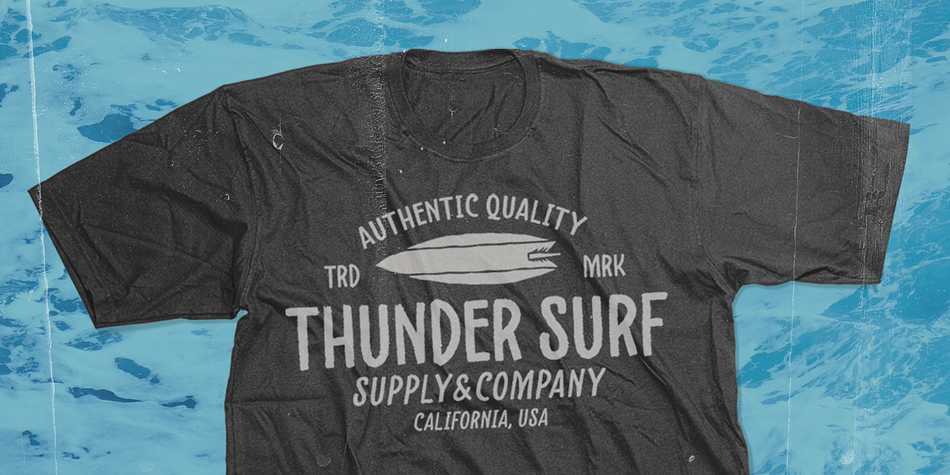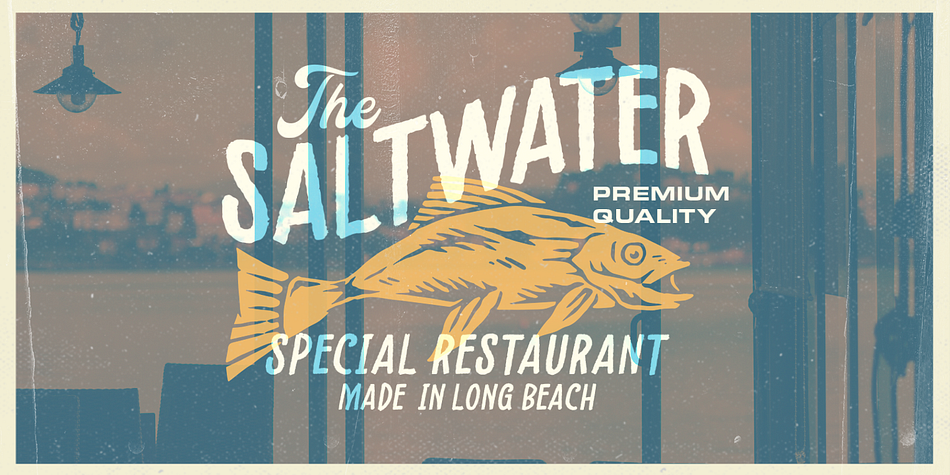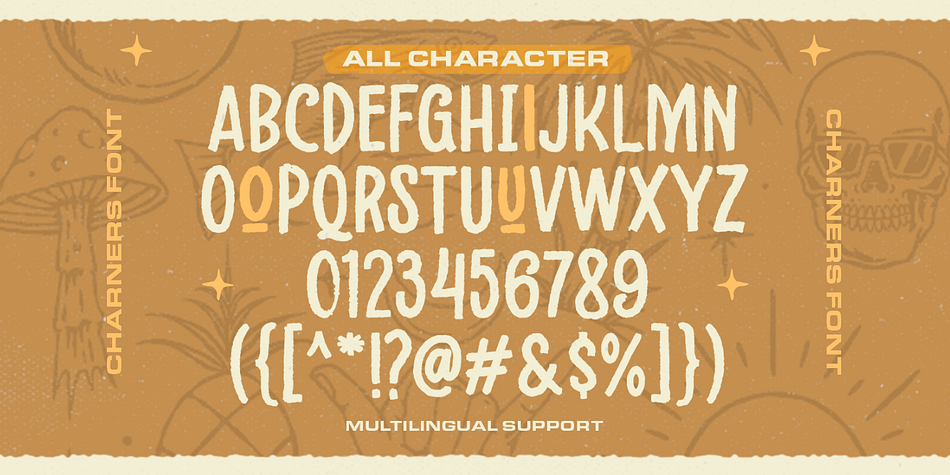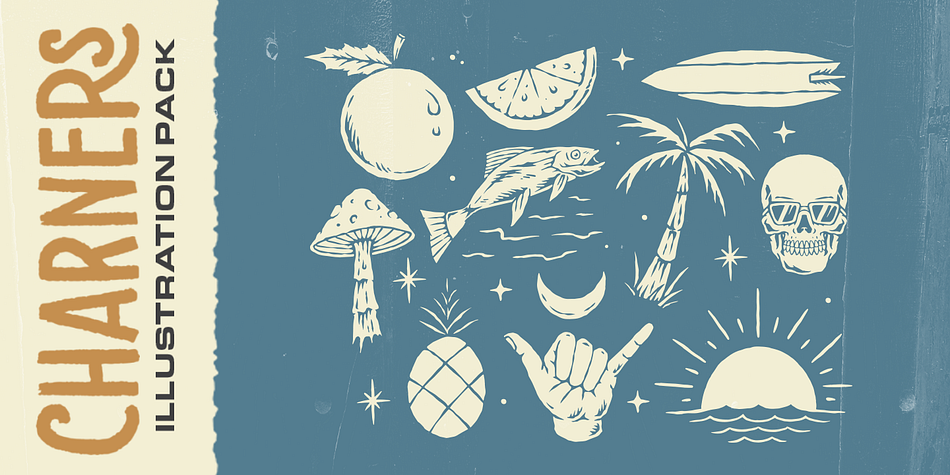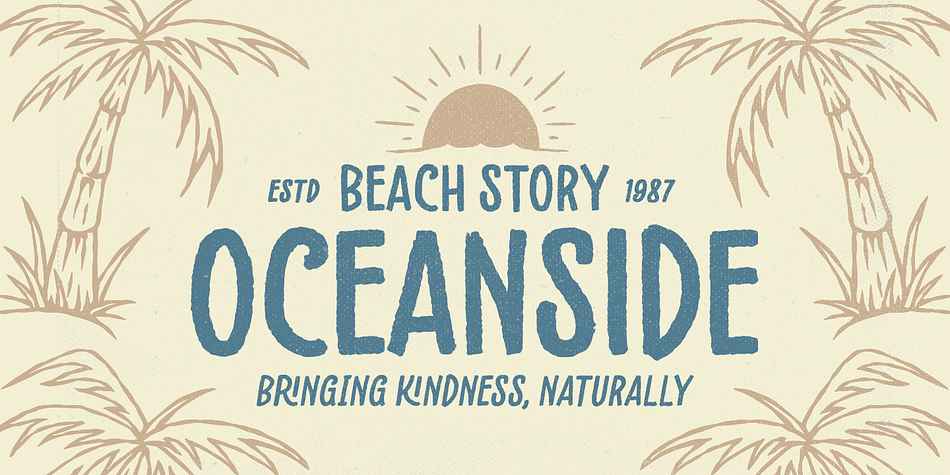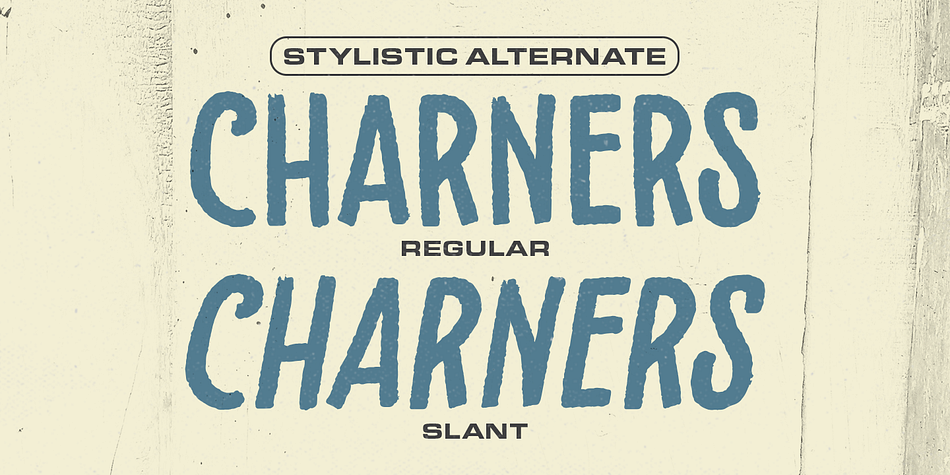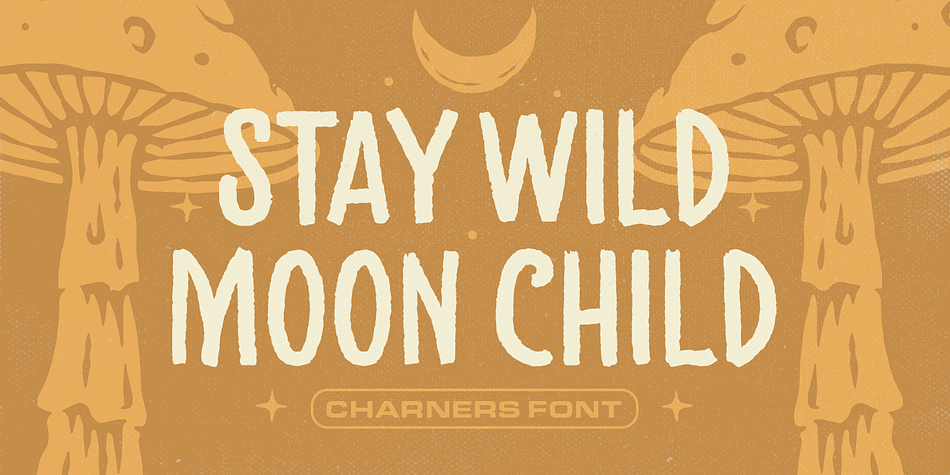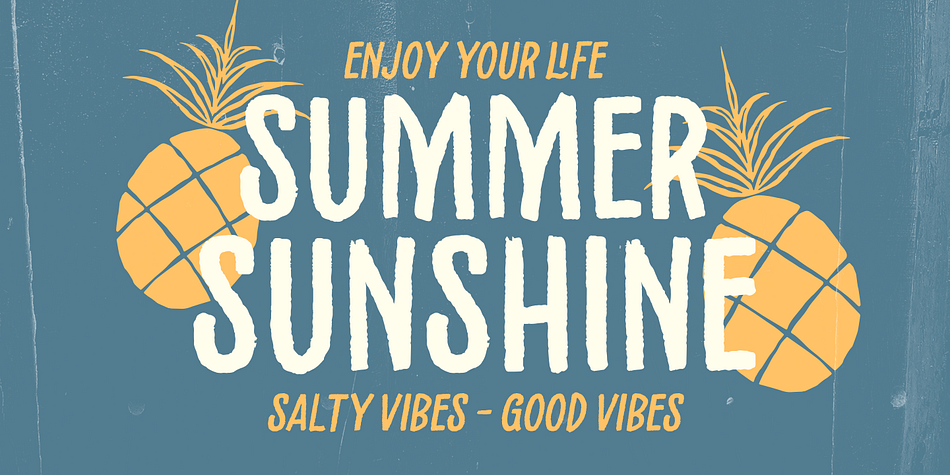
Charners
Designed by Hendry Juanda, Charners is a hand display and retro font family. This typeface has two styles and was published by Letterhend Studio.
Charners is a quirky display font with slant version.This font perfectly made to be applied especially in logo, and the other various formal forms such as invitations, labels, logos, magazines, books, greeting / wedding cards, packaging, fashion, make up, stationery, novels, labels or any type of advertising purpose.